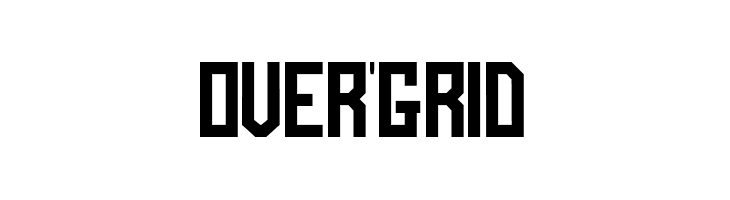
A playful, modern font with rounded edges and geometric shapes.
A bold, geometric font with a modern and futuristic style.
A playful, handwritten font with a casual and whimsical style.
A bold, fragmented font with a chaotic and edgy style.
A bold, geometric stencil font with an industrial feel.
A bold, hand-painted style font with a vintage, rugged appearance.
A modern, continuous line font with elegant, interconnected characters.
A playful handwritten font with rounded, slightly irregular letterforms.
A geometric, angular font with consistent stroke width and a modern look.
A playful, handwritten-style font with bold, uniform strokes.
A bold, geometric 3D font with a futuristic and industrial style.
A bold, geometric font with a modern, industrial style.
A bold, geometric font with sharp angles and a modern aesthetic.
A futuristic, modular font with geometric shapes and a techno vibe.
A QR code-inspired decorative font with each character as a distinct QR symbol.
A bold, stencil-style font with a rugged, industrial look.
A geometric, block-like font with a modern, digital aesthetic.